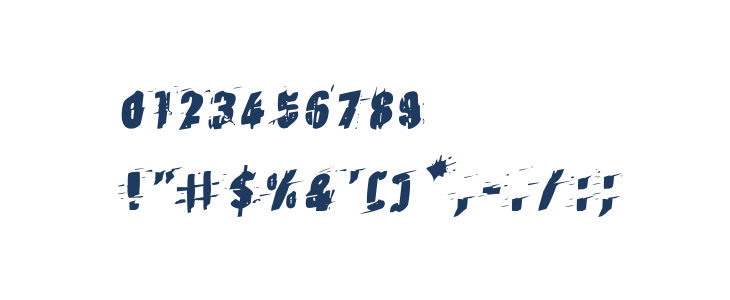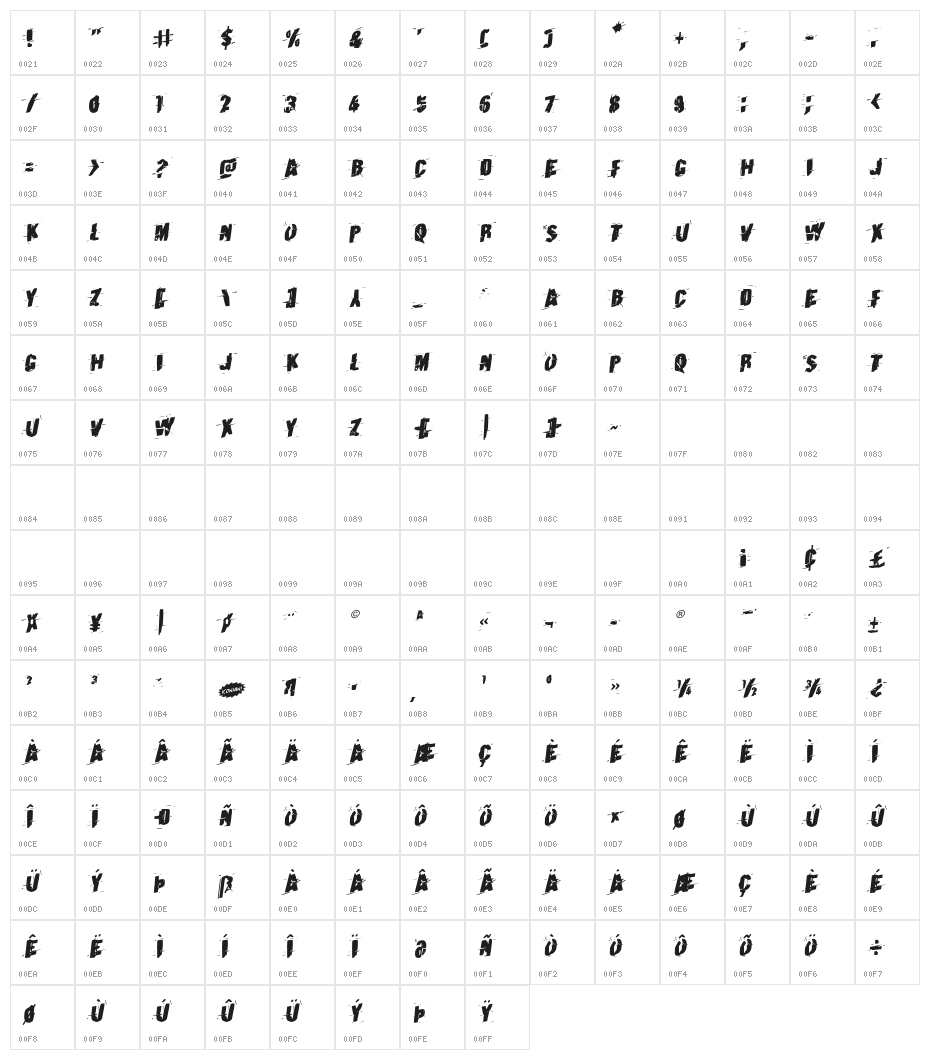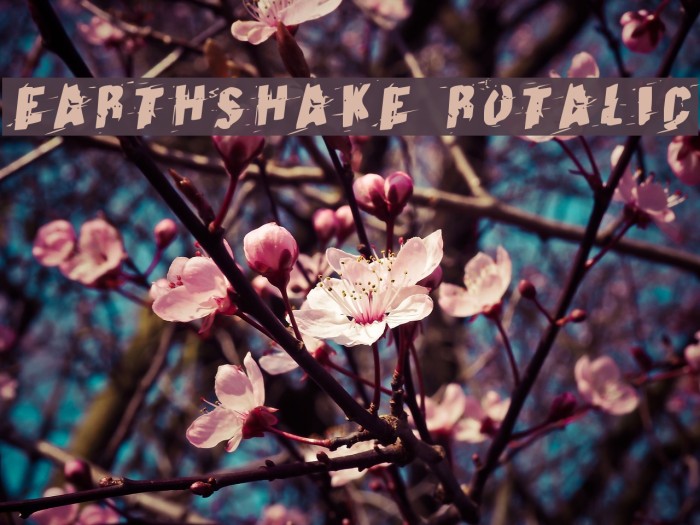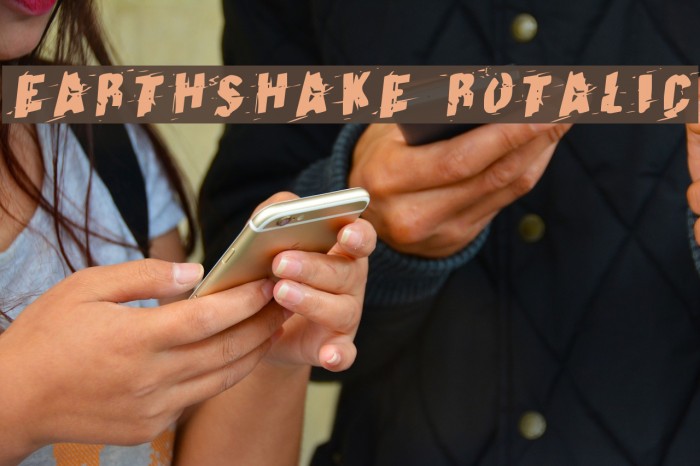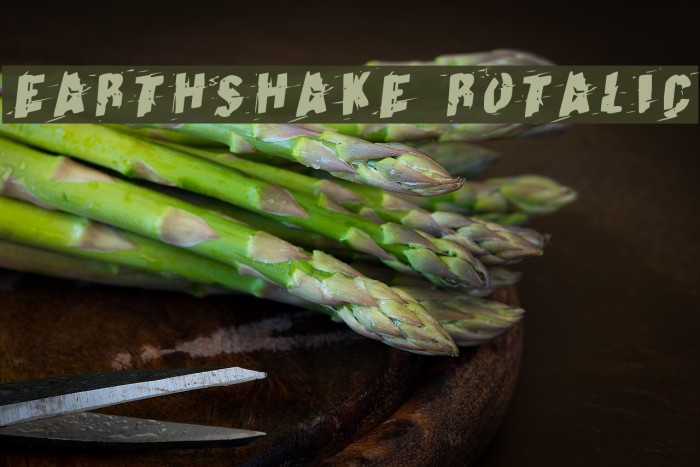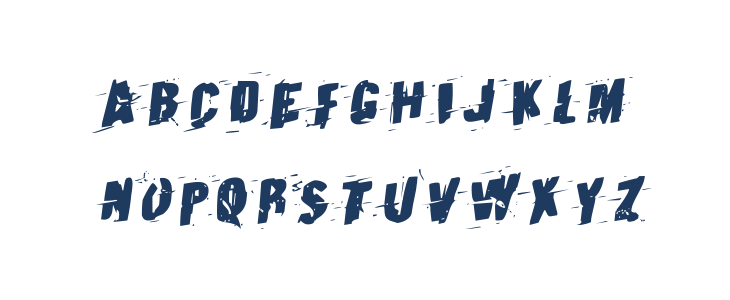
Earthshake Rotalic Font
Earthshake Rotalic Description
This font features a bold, distressed style with an italic slant, giving it a dynamic and edgy appearance. The characters are heavily textured, resembling a worn or weathered look, which adds a sense of movement and energy. The uppercase and lowercase letters maintain a consistent design, with sharp angles and irregular edges that contribute to its rugged aesthetic. The numbers and special characters follow the same theme, ensuring a cohesive look across all glyphs. This font is ideal for projects that require a strong, impactful visual statement.
| Proposed Projects | Ideal for album covers, posters, branding for extreme sports, or any design needing a bold, gritty impact. |